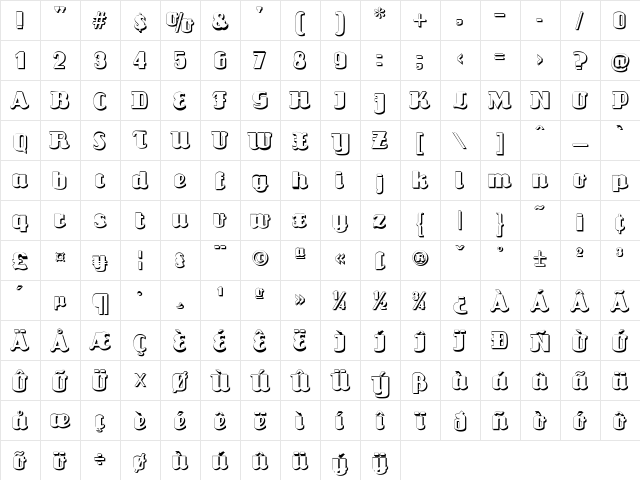
Complete Louisianne Shadow Regular glyph index. Displaying only characters natively supported by Louisianne Shadow Regular font.
Louisianne Shadow is built around its visual character rather than neutral utility - its distinctive forms are designed to make an impression at display sizes.
Font Pairing: Pair with a clean neutral sans-serif for body copy to let Louisianne Shadow's character lead without overwhelming the composition.
Pro Tip: Use Louisianne Shadow exclusively at display sizes - it was designed to be seen, not read at length. Let a neutral companion handle body copy.